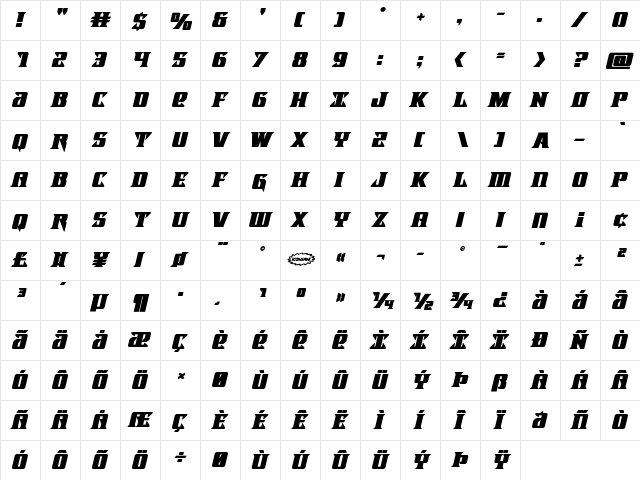
Lifeforce Bold Italic Bold Italic
Design Context for Lifeforce Bold Italic Typeface
Lifeforce Bold Italic brings high-energy athletic personality to the page — its confident, muscular forms are built for impact. The slanted form adds forward momentum and visual energy. The heavy weight commands attention and anchors typographic hierarchies.
Built for sports team identities, athletic apparel, event posters, and high-energy promotional material.
Font Pairing: Use alongside a condensed or geometric sans for supporting copy — keep the pairing bold, functional, and free of ornament.
Pro Tip: Lifeforce Bold Italic thrives on contrast — try it large, bold, and tight against a clean background for maximum visual impact.